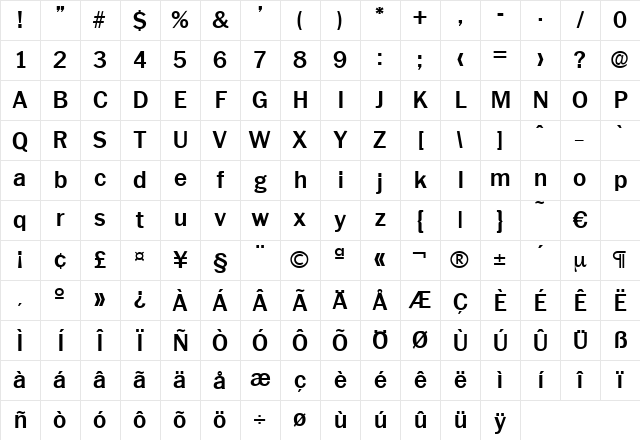
Plymouth-DemiBold Regular
Design Context for Plymouth-DemiBold
Plymouth-DemiBold is a composed and adaptable typeface that performs quietly and consistently across a wide range of design contexts. Its bold stroke weight gives it real presence on the page.
Pro Tip: Use Plymouth-DemiBold in both headline and body roles to test its range before committing to a single application.